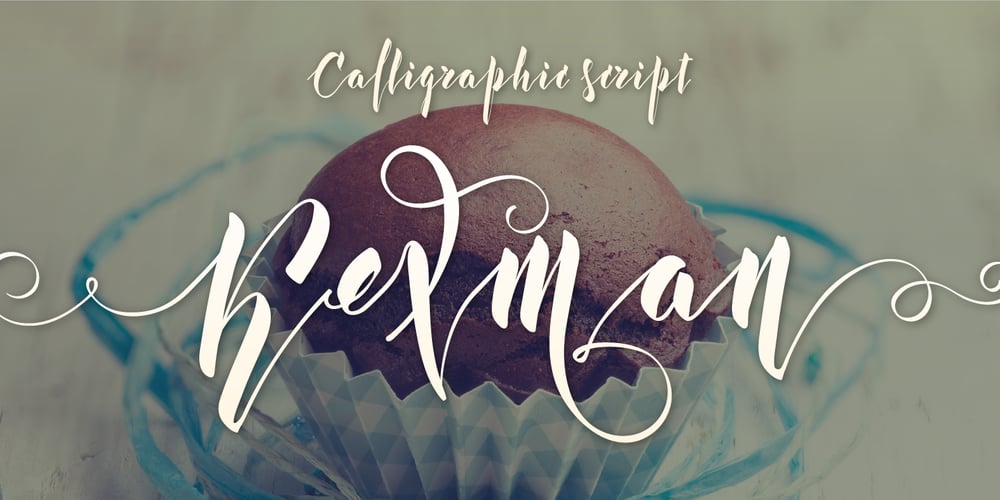
Kexman Font Family was designed by Gleb Guralnyk and published by Gleb Guralnyk. Kexman contains 1 styles and family package options. Hi! Introducing a calligraphic handmade script named “Kexman”. It’s a one line font with many OpenType features: ligatures, alternates, swashes.